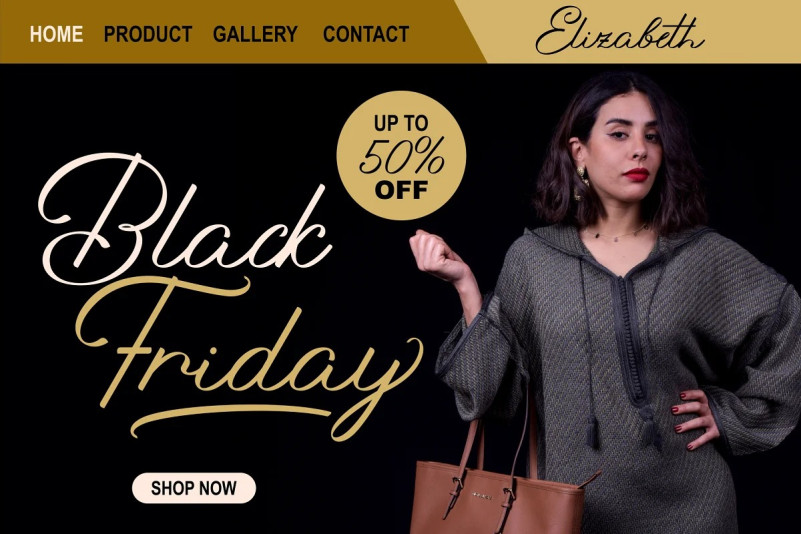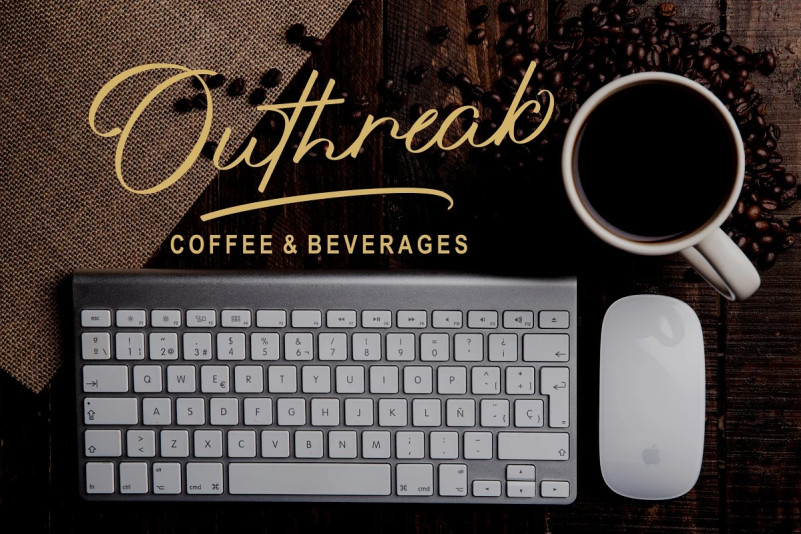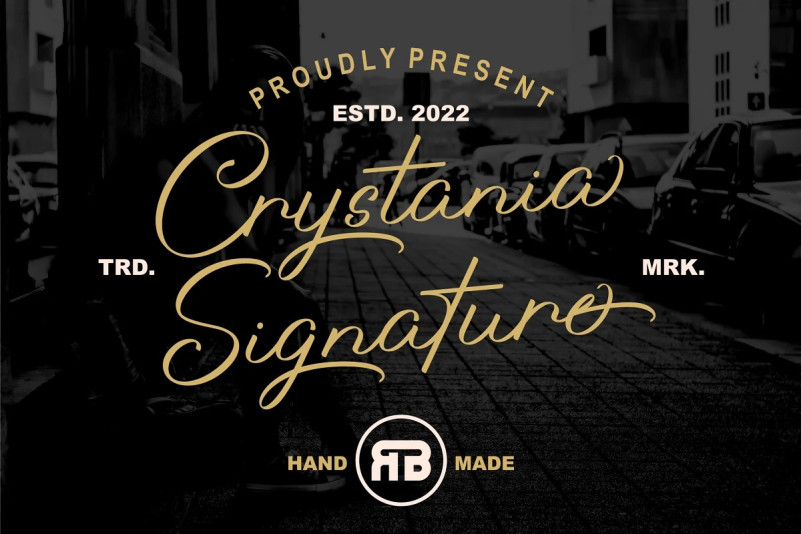
Crystania Font
Crystania Script Font is a must-have signature script that has a diverse. This collection fills a void and separates itself from other scripts available.
Crystania is a handwritten signature script with a natural & stylish flow. This collection of scripts is perfect for personal branding. But, this works well for many applications. Everything from personal branding & wedding invitations to advertising could benefit from this collection of signature fonts.
These typefaces work well for many different aesthetics. They work well with something like ‘cosmetics’ for example but would also work well with Liquor Labels, Signage, & any type of signature-styled logo.